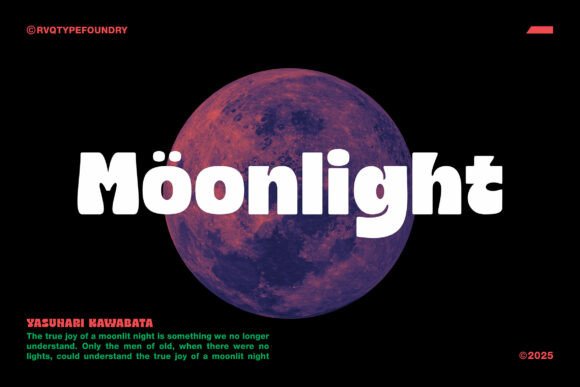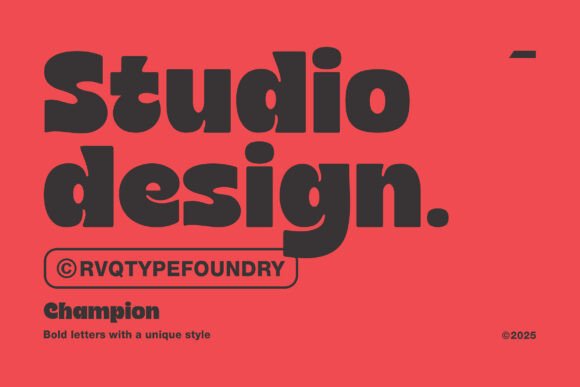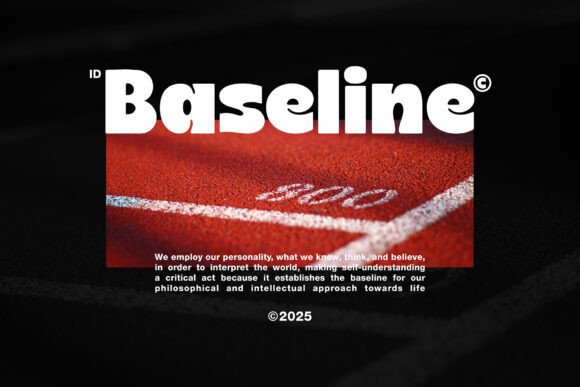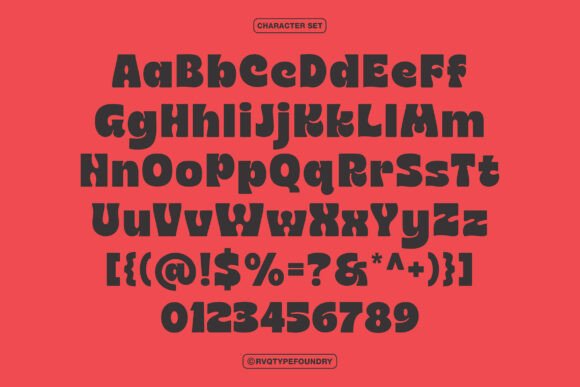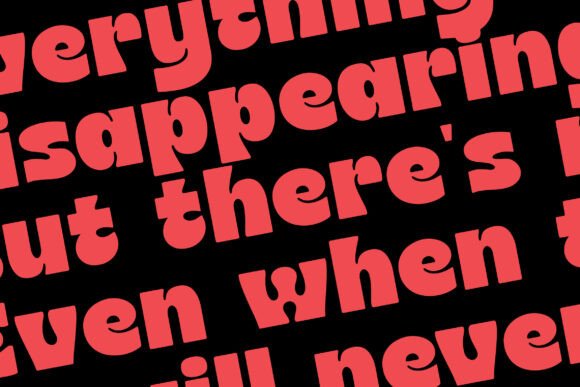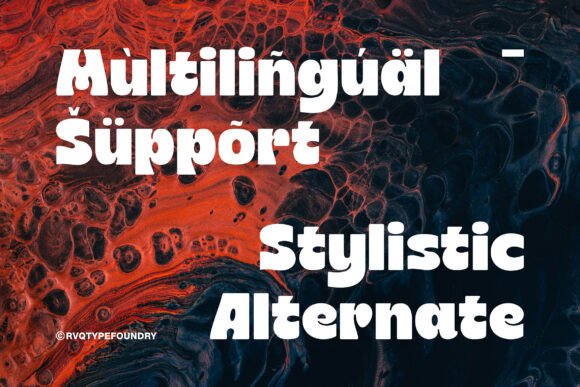
Champion Font: The Ultimate Display Font for High-Impact Designs
In the world of typography, fonts play a crucial role in conveying messages, expressing emotions, and creating visual identities. For designers and crafters, finding the right font can make all the difference in creating stunning designs that capture attention and leave a lasting impression. One such font that has gained popularity for its bold and playful style is the Champion Font, specifically its bold variant, Champion Bold.
What is Champion Bold?
Champion Bold is a high-impact display font characterized by its chunky, rounded letters that demand attention. Its modern yet playful style makes it perfect for logos, sports branding, posters, and dynamic titles that need a strong visual voice. The font’s bold and rounded edges give it a friendly and approachable feel, making it suitable for a wide range of design projects.
Key Features of Champion Bold
- Chunky and Rounded Letters: Champion Bold’s letters are thick and rounded, giving it a sturdy and dependable feel.
- Modern and Playful Style: The font’s modern design makes it perfect for sports branding, posters, and dynamic titles, while its playful style adds a touch of friendliness.
- High-Impact Display: Champion Bold is designed to grab attention, making it ideal for headlines, titles, and logos that need to stand out.
- Versatile: The font’s versatility makes it suitable for various design projects, from digital designs to print materials.
Use Cases for Champion Bold
Champion Bold’s unique style makes it perfect for various design projects, including:
- Logos and Branding: The font’s bold and playful style makes it ideal for creating memorable logos and branding materials.
- Sports Branding: Champion Bold’s modern and energetic feel makes it perfect for sports-related designs, such as team logos, jerseys, and promotional materials.
- Posters and Flyers: The font’s high-impact display style makes it suitable for creating eye-catching posters and flyers.
- Digital Designs: Champion Bold can be used in digital designs, such as social media graphics, website headers, and mobile app interfaces.
Tips for Using Champion Bold Effectively
To get the most out of Champion Bold, follow these tips:
- Use it Sparingly: Champion Bold is a bold font, so use it sparingly to avoid overwhelming your design.
- Pair it with Other Fonts: Pair Champion Bold with other fonts to create visual interest and add depth to your design.
- Experiment with Colors: Try different colors to find the perfect combination that complements your design.
- Consider Legibility: Ensure that your text is legible, especially when using Champion Bold for body text.
Champion Bold is a powerful display font that can elevate your designs and make them more engaging. Its modern and playful style, combined with its chunky and rounded letters, make it perfect for logos, sports branding, posters, and dynamic titles. By using Champion Bold effectively and following the tips outlined above, you can create stunning designs that capture attention and leave a lasting impression.
Whether you’re a designer, crafter, or DIY enthusiast, Champion Bold is an excellent addition to your font library. Its versatility, modern style, and high-impact display make it perfect for a wide range of design projects. So, go ahead and explore the possibilities of Champion Bold – your designs will thank you!